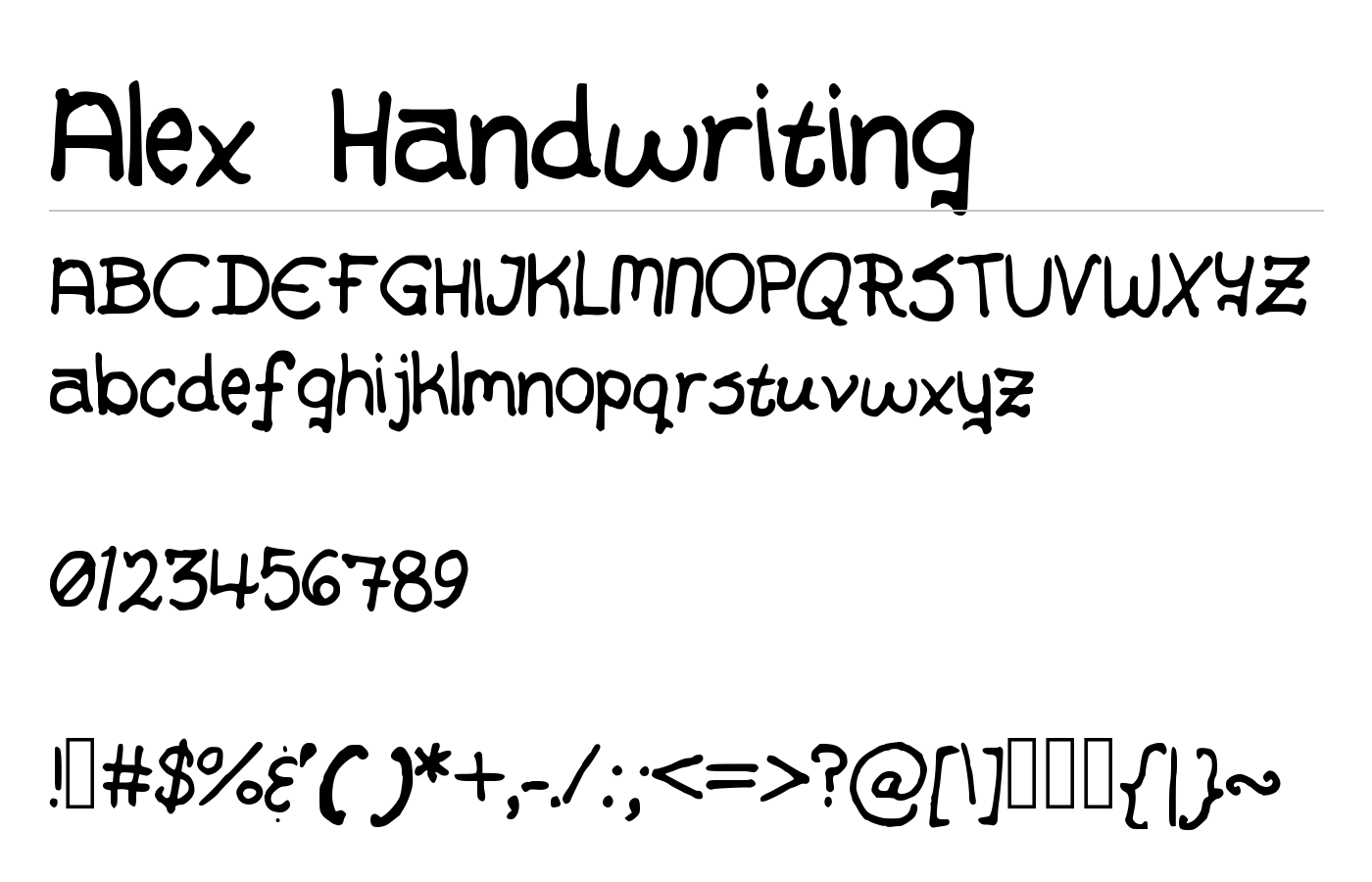
Alex Handwriting is a playful and casual handwritten font with a friendly, natural feel. Its irregular letterforms and moderate contrast give it a relaxed, approachable style perfect for personal projects, informal branding, or creative designs that need a warm, human touch. This font works well in logos, invitations, and any context where a charming, hand-drawn aesthetic adds personality.
Alex Handwriting Font
About Alex Handwriting Font